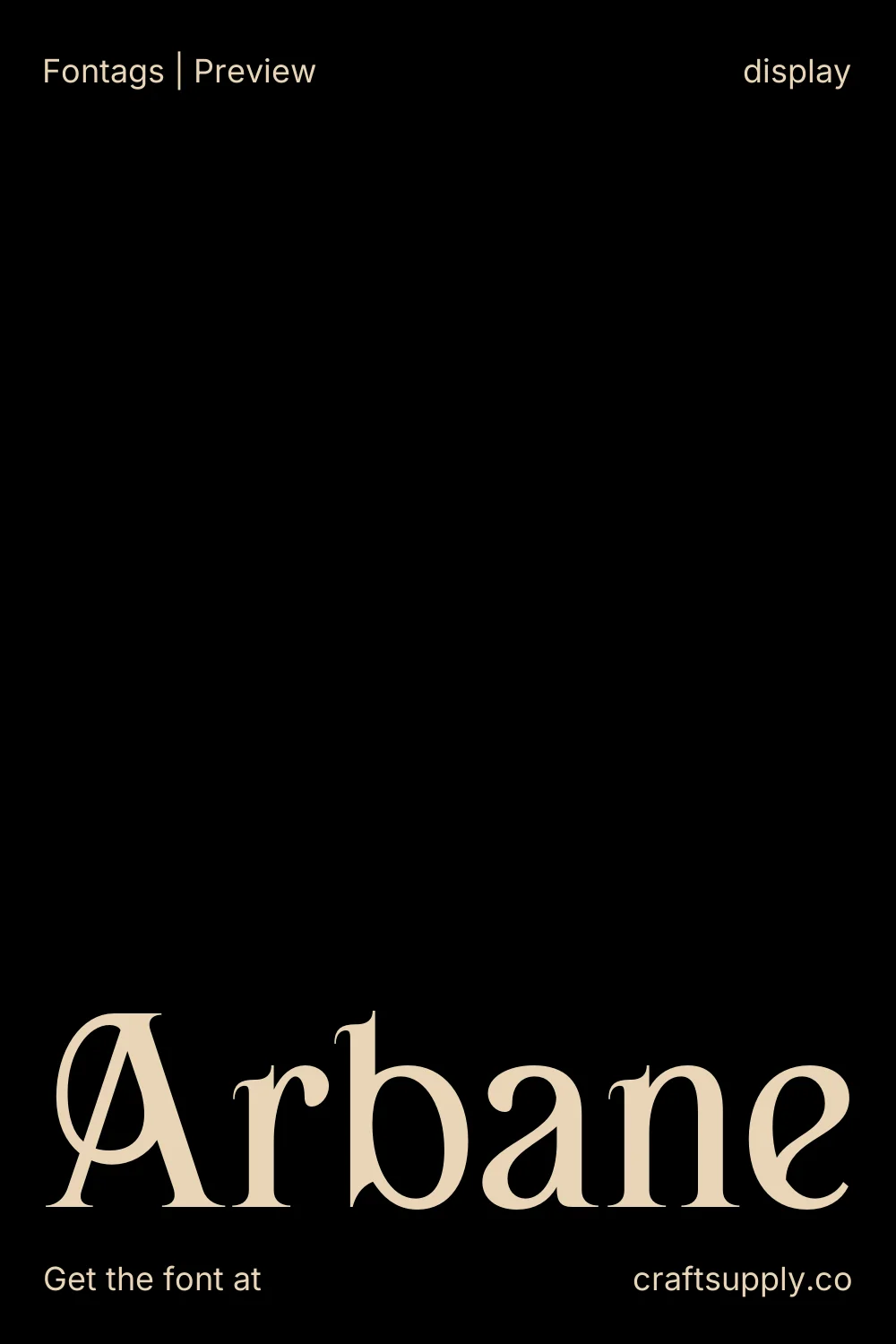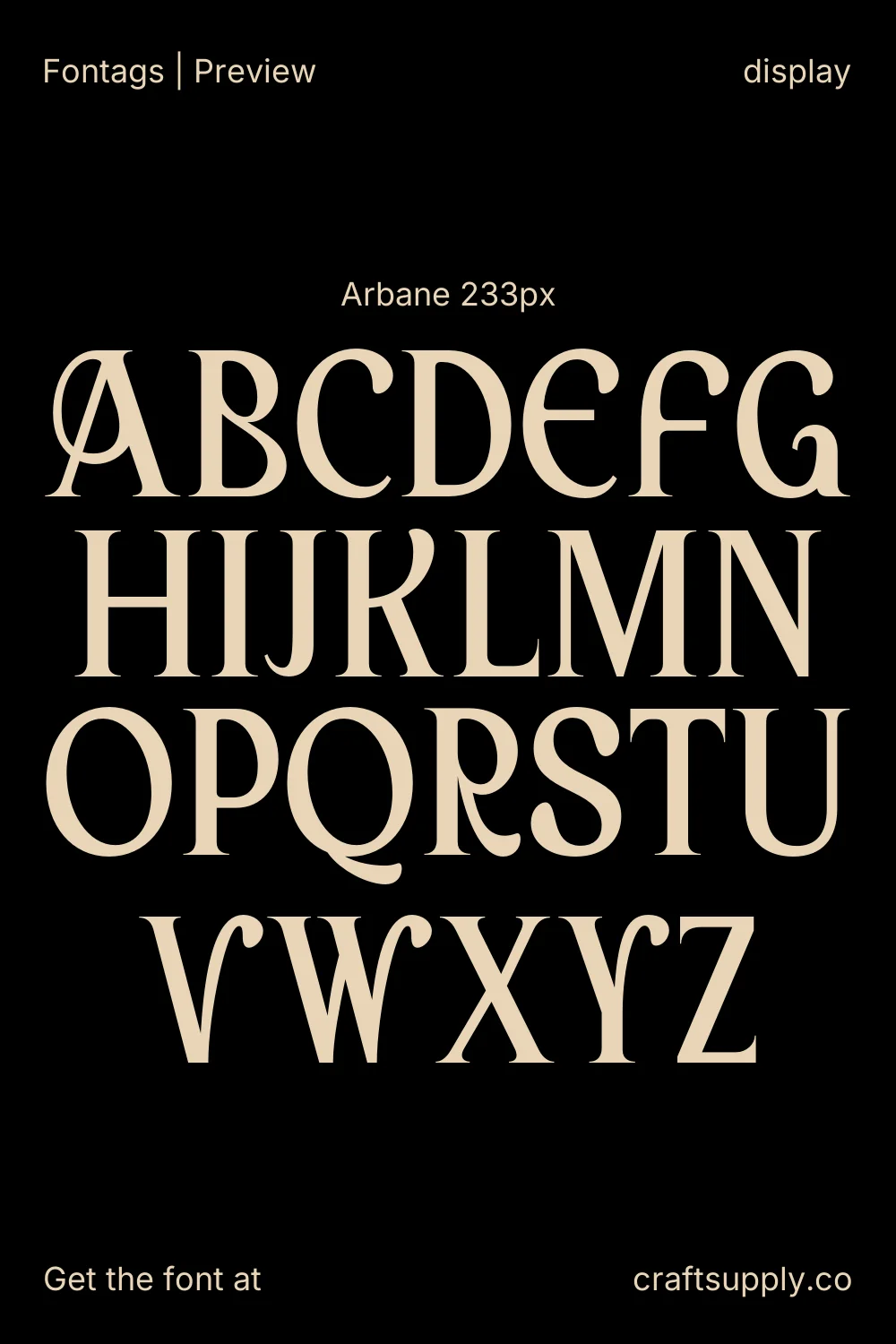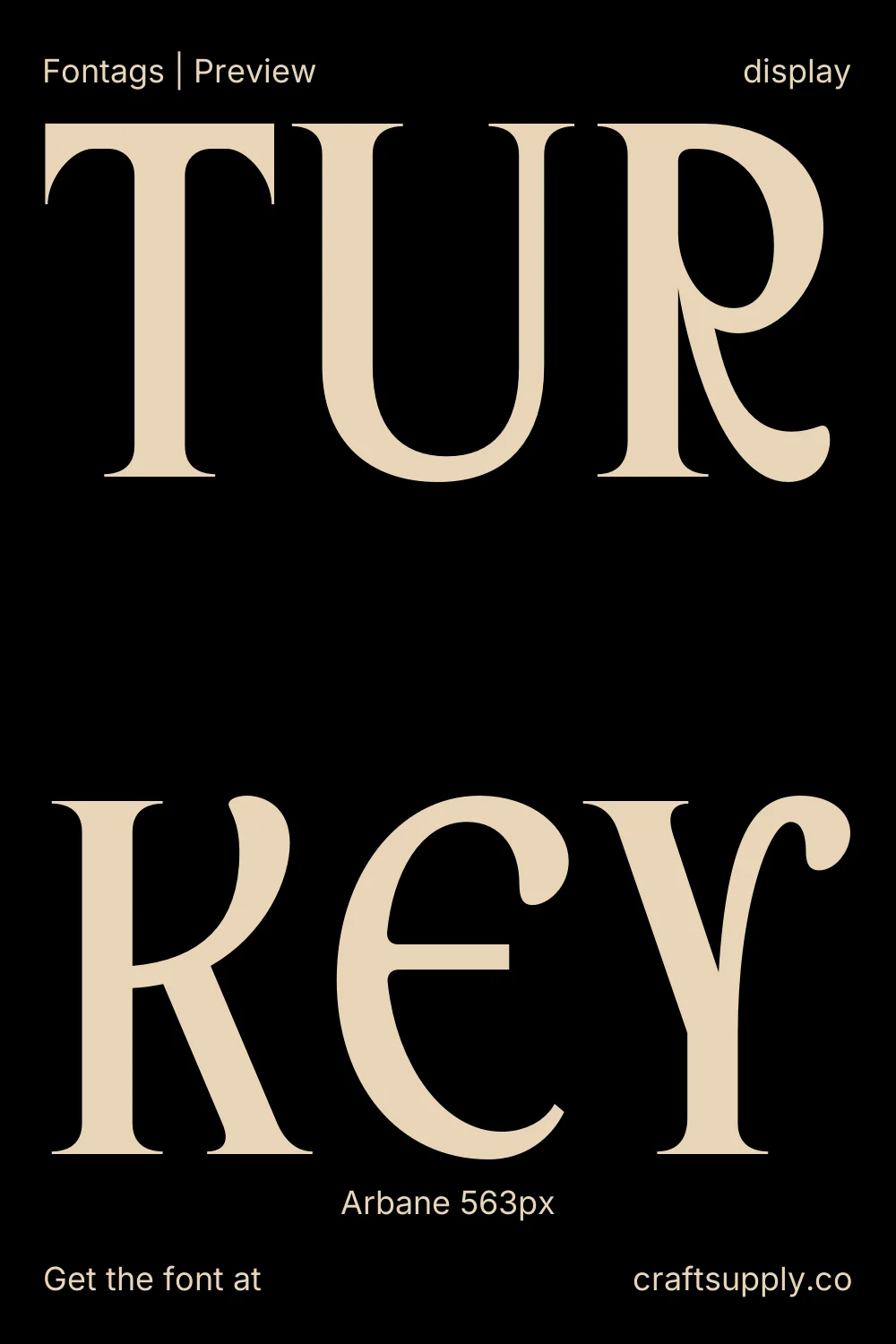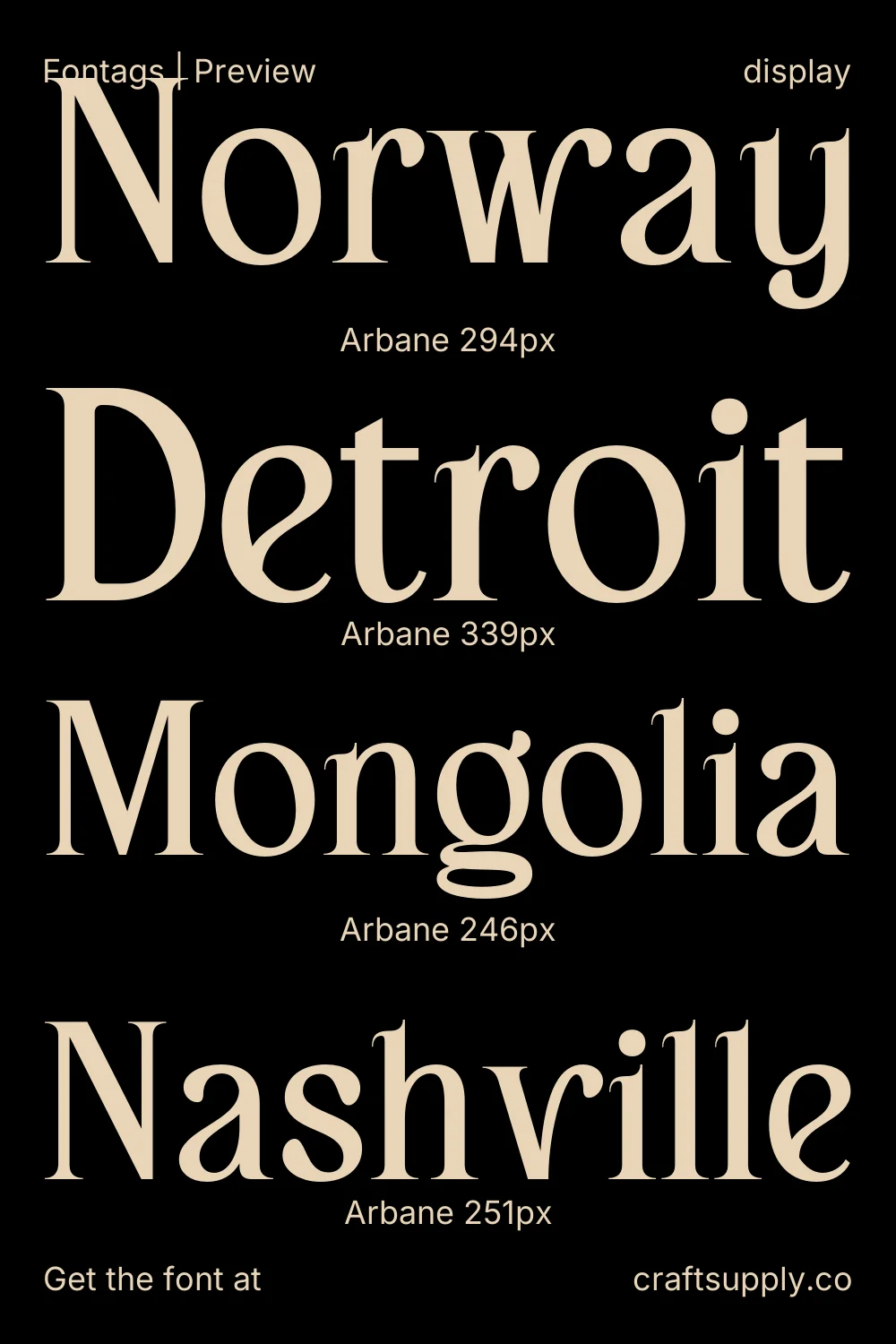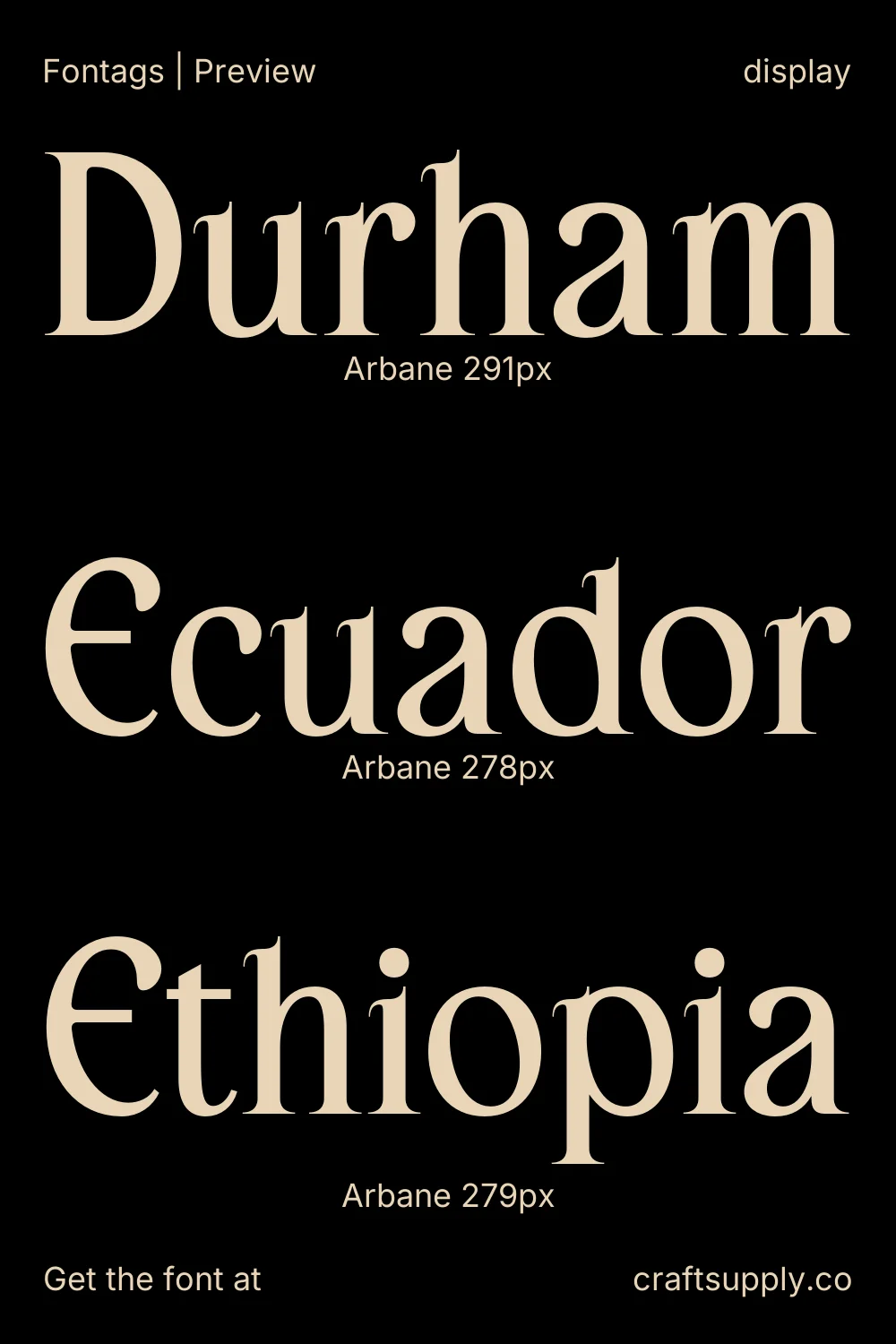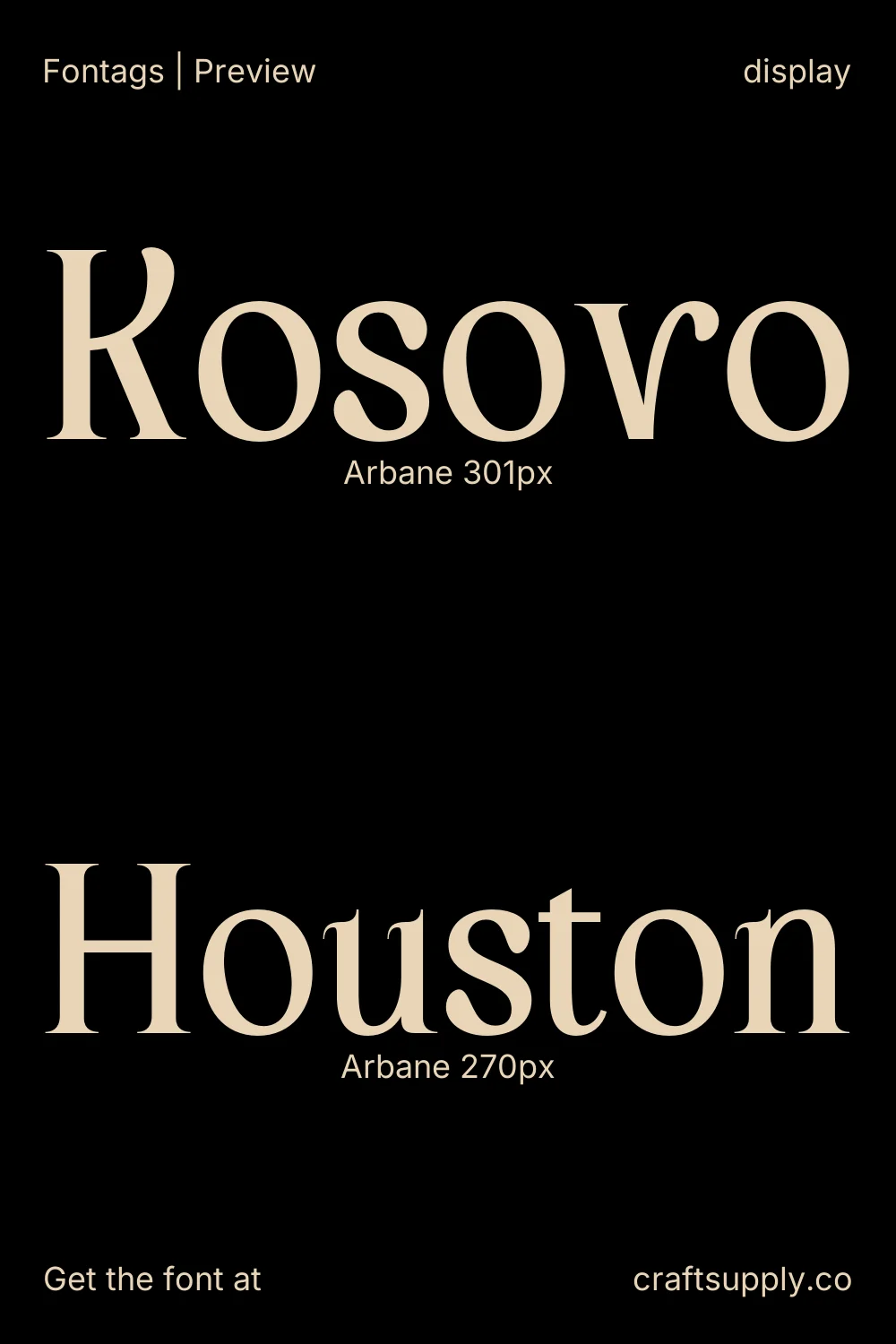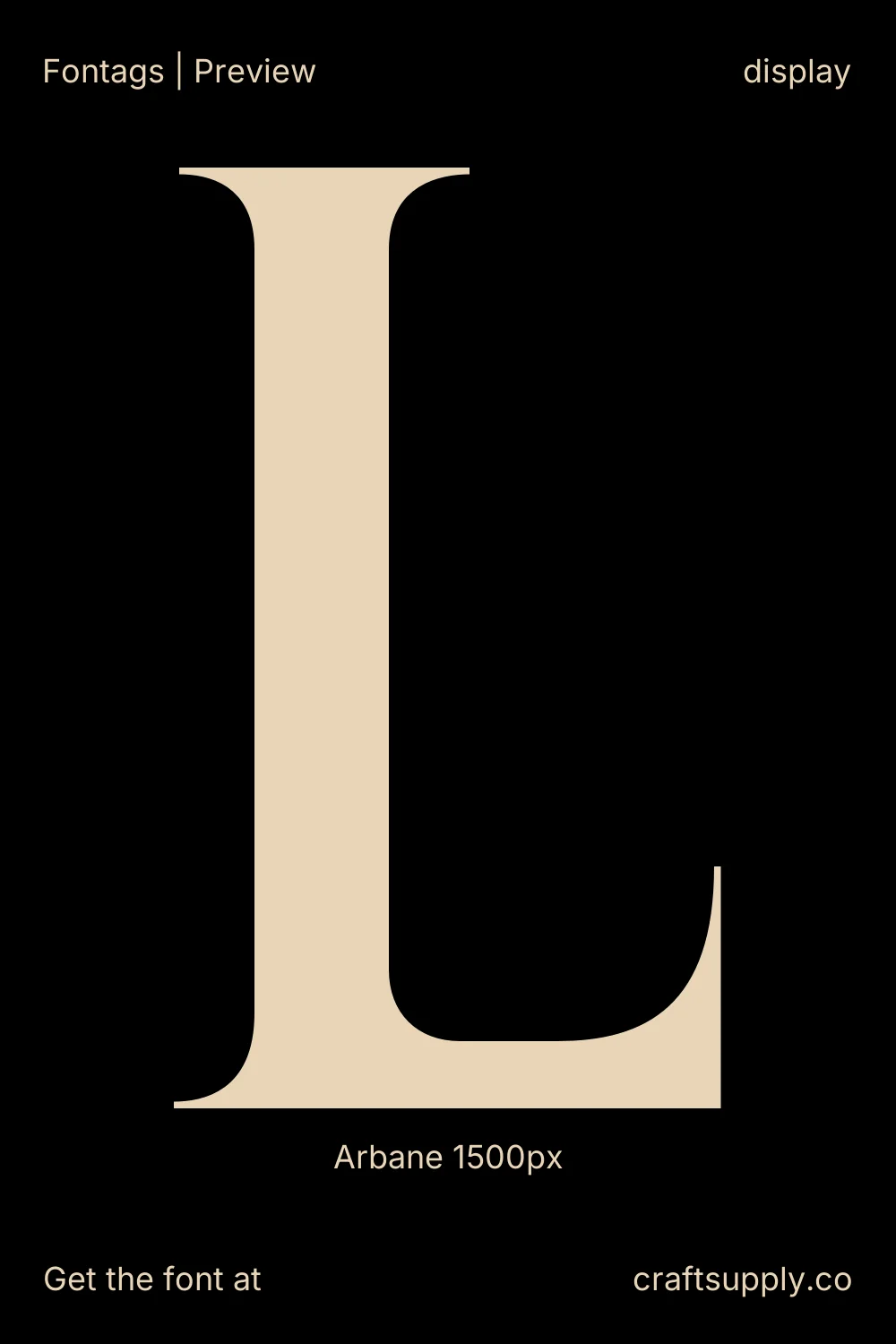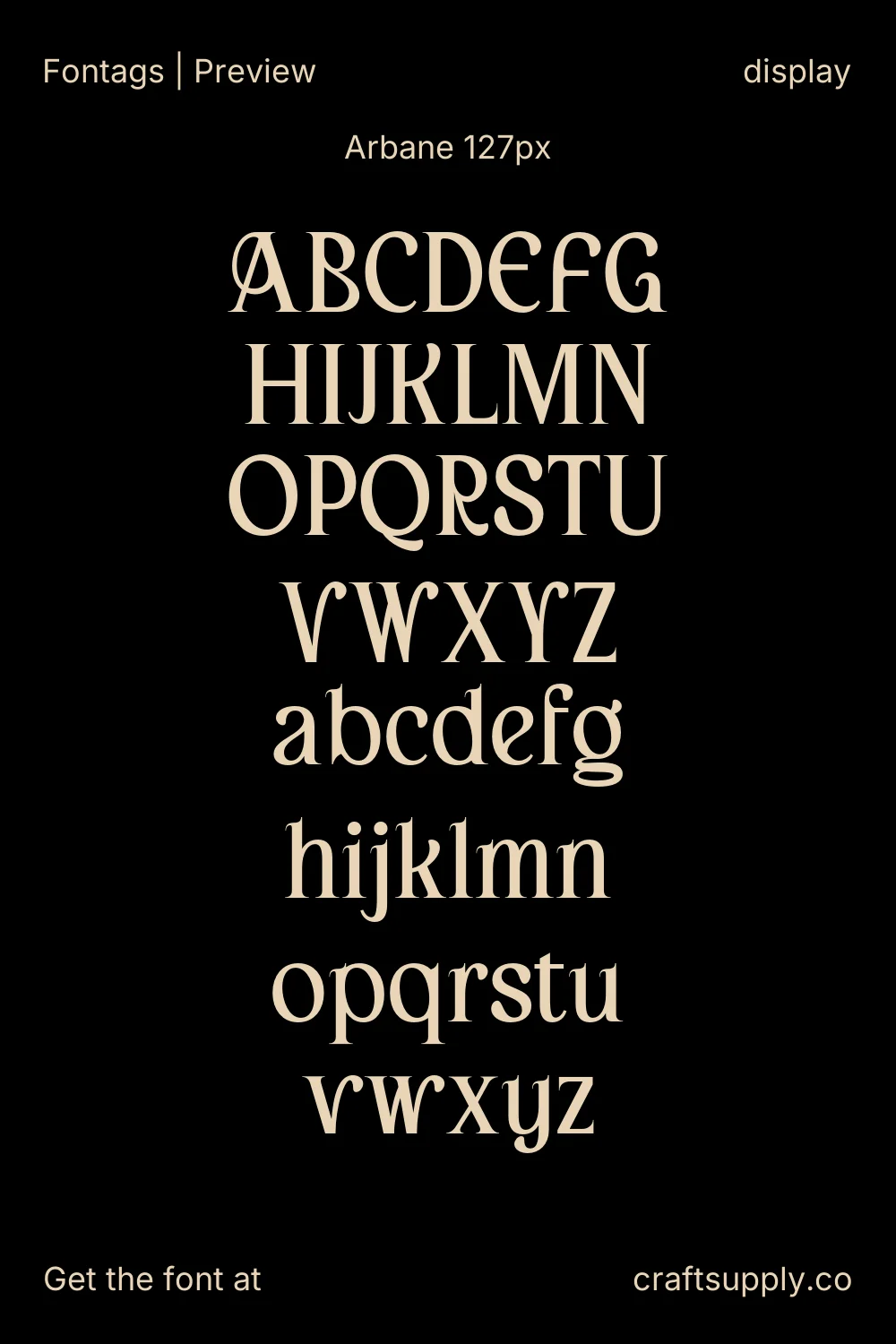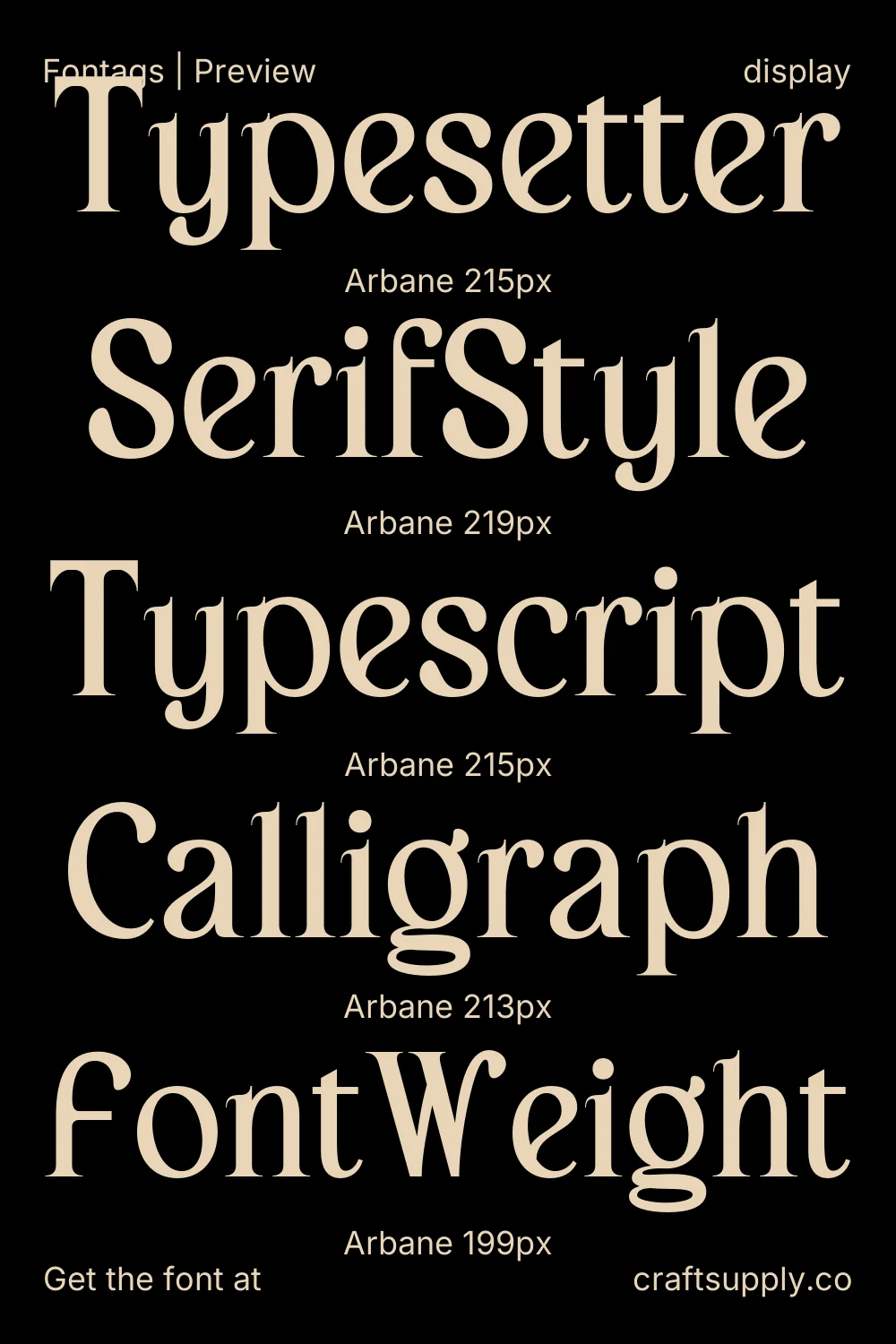
Arbane
Arbane is an elegant Art Nouveau serif font featuring graceful curves and intricate details. Its sophisticated and timeless look makes it perfect for branding, editorial layouts, and vintage-inspired poster designs. Despite its ornamental nature, it remains versatile and legible across sizes, from headlines to small text.